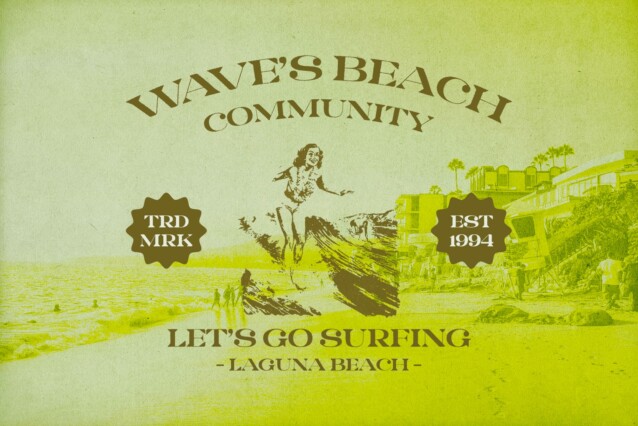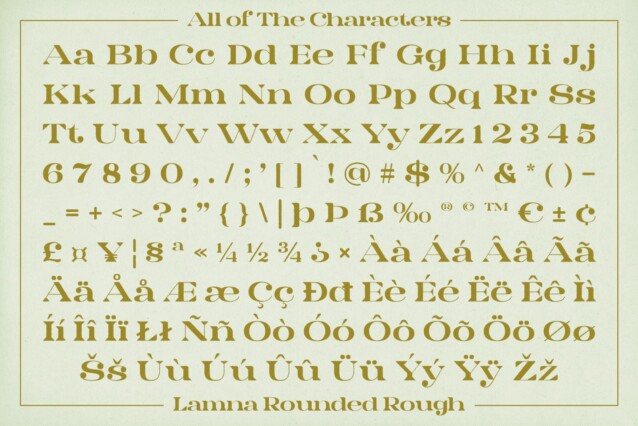
Lamna Rounded Rough Font
Lamna Rounded Rough Font is a wedge-shaped serif font that beautifully captures an elegant retro feel through its distinctive and thoughtful design. Moreover, the font’s combination of wedge-shaped serifs and rounded corners creates a nostalgic vibe that harks back to classic typography, yet it maintains a refined structure that ensures timeless sophistication. Additionally, the carefully crafted letterforms exude a sense of elegance, making this font a versatile choice for a variety of design needs.